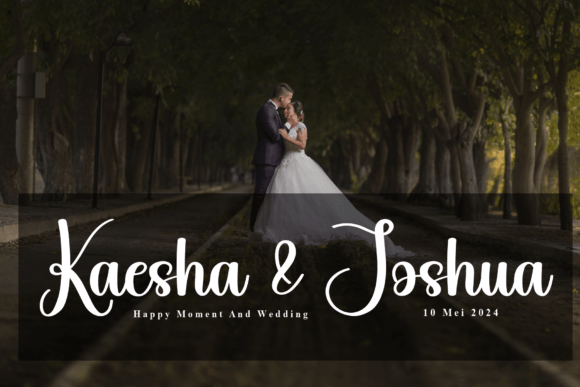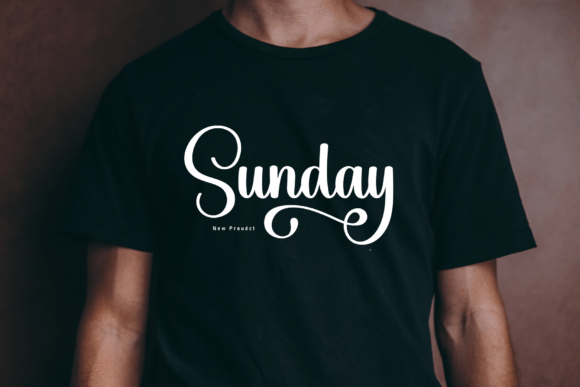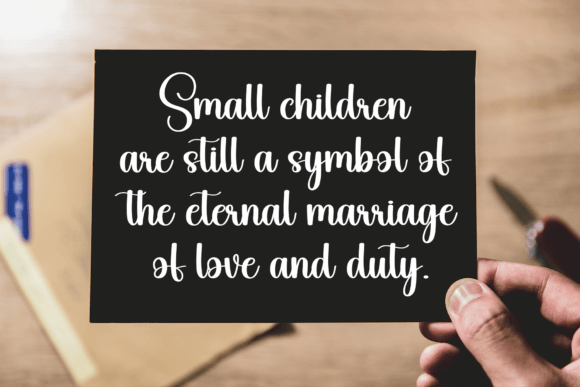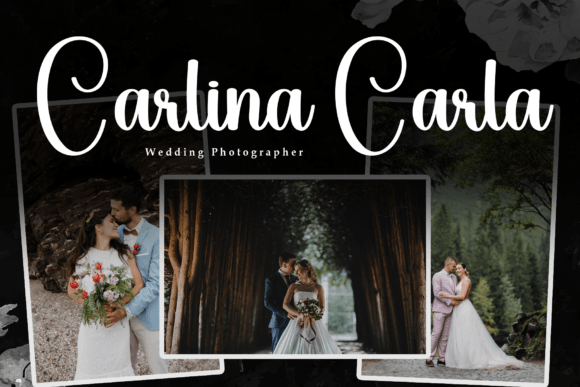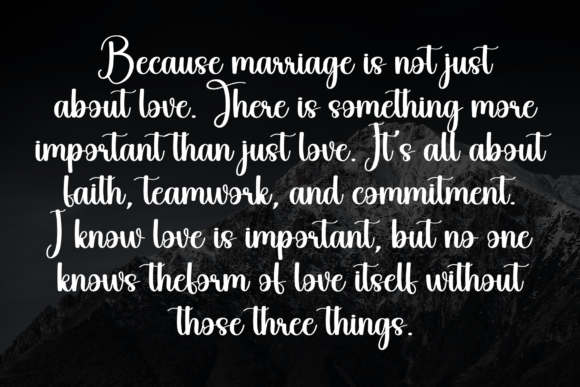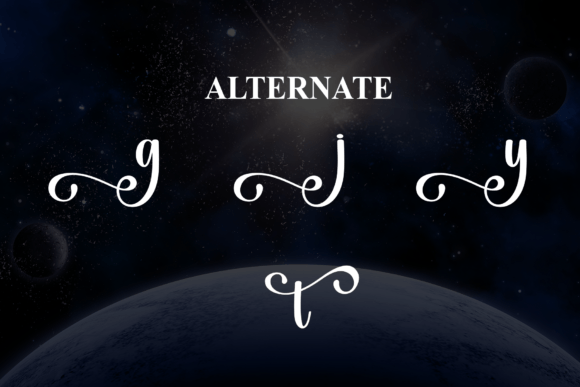
The Star of the Show: A Comprehensive Guide to Astronomy Font
I’ll never forget the time I was working on a wedding invitation project, and my client asked for a font that was “fun, yet elegant.” I scoured the internet, tried out dozens of fonts, but nothing seemed quite right. That was until I stumbled upon Astronomy Font. This sweet and friendly handwritten font was love at first sight! ✨ In this article, I’ll share my experience with Astronomy Font, its features, and how to make the most of it in your designs.
An Honest Review of Astronomy Font
Astronomy Font is a beautiful, handwritten font that’s perfect for adding a touch of whimsy to your designs. Here’s what I love about it:
- ✨ Sweet and friendly vibe that’s perfect for wedding invitations, cards, and other designs that need a personal touch
- ✅ Easy to read, even at small sizes
- 🎉 Fun and playful, yet elegant and sophisticated
Of course, no font is perfect, and Astronomy Font has a few quirks:
- 🤔 Limited character set, which can make it difficult to create complex designs
- ⚠️ Not suitable for body text, as it’s best used for headlines and titles
The Backstory of Astronomy Font
Astronomy Font was designed by a team of creatives who wanted to create a font that was both fun and elegant. Inspired by the stars and the night sky, they crafted a font that’s perfect for adding a touch of magic to your designs.
| What is Astronomy Font? | Astronomy Font is a sweet and friendly handwritten font that’s perfect for adding a touch of whimsy to your designs. |
| What can I use Astronomy Font for? | Astronomy Font is perfect for wedding invitations, cards, and other designs that need a personal touch. |